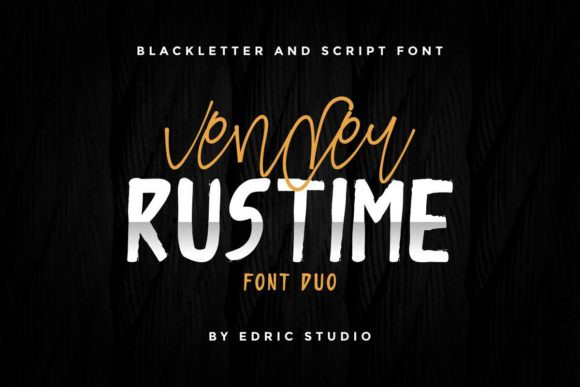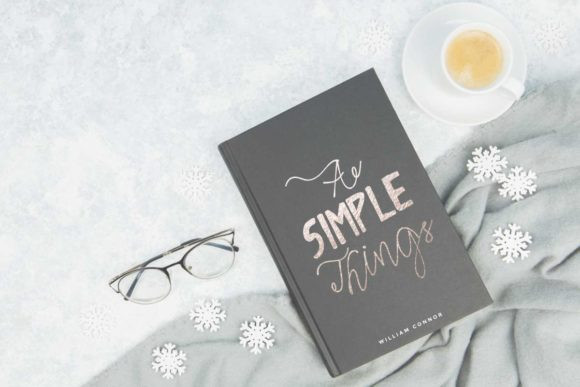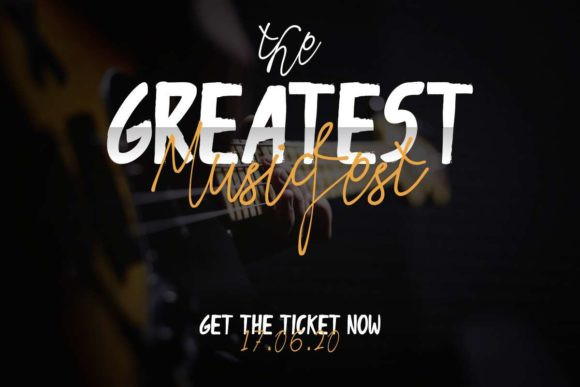
Vender Rustime Font
Vender Rustime duo is a match made in heaven, the authentic swashes of the script perfectly complement the display font’s style. Combining these two fonts on your next design will give your next design a magical and elegant feel.